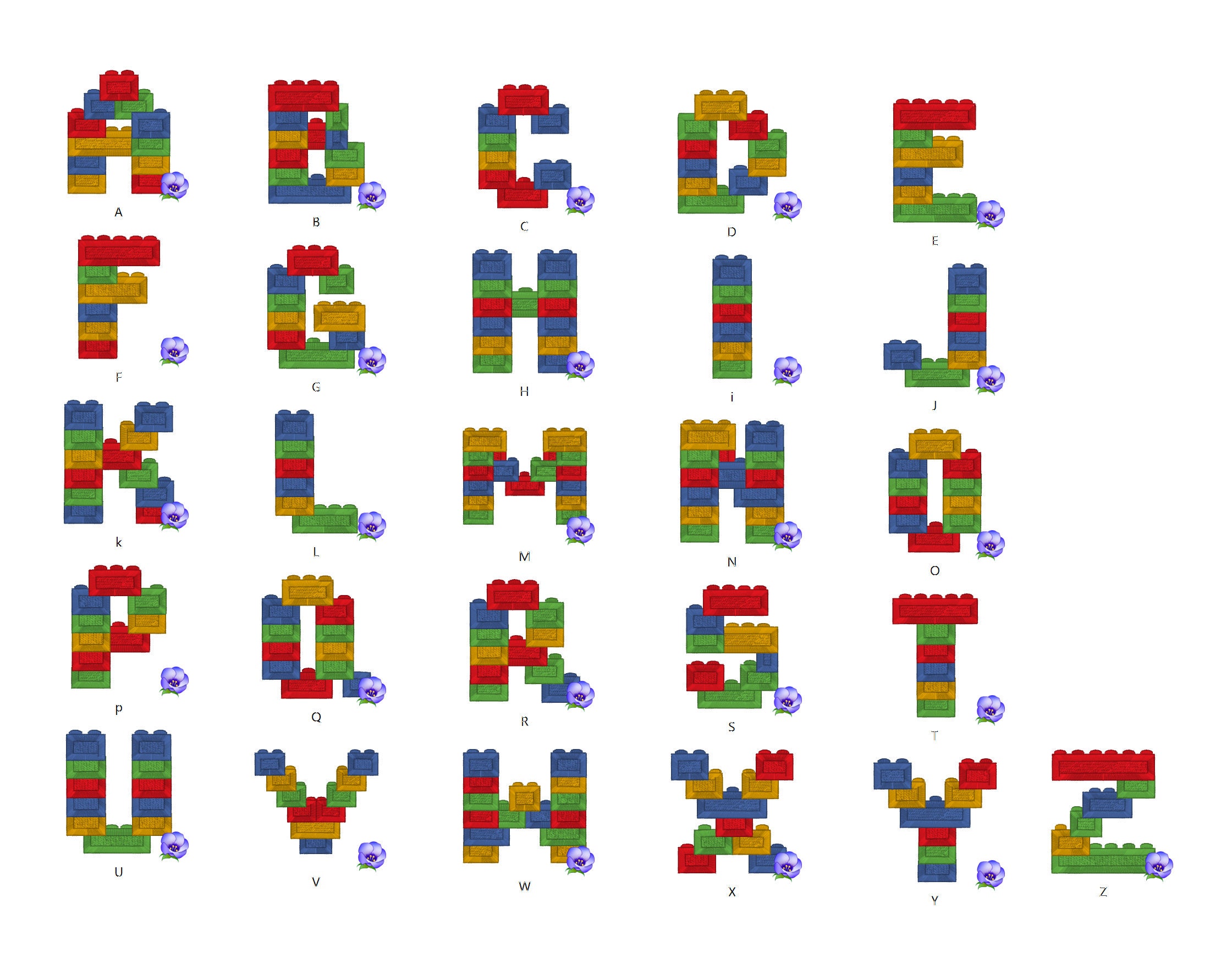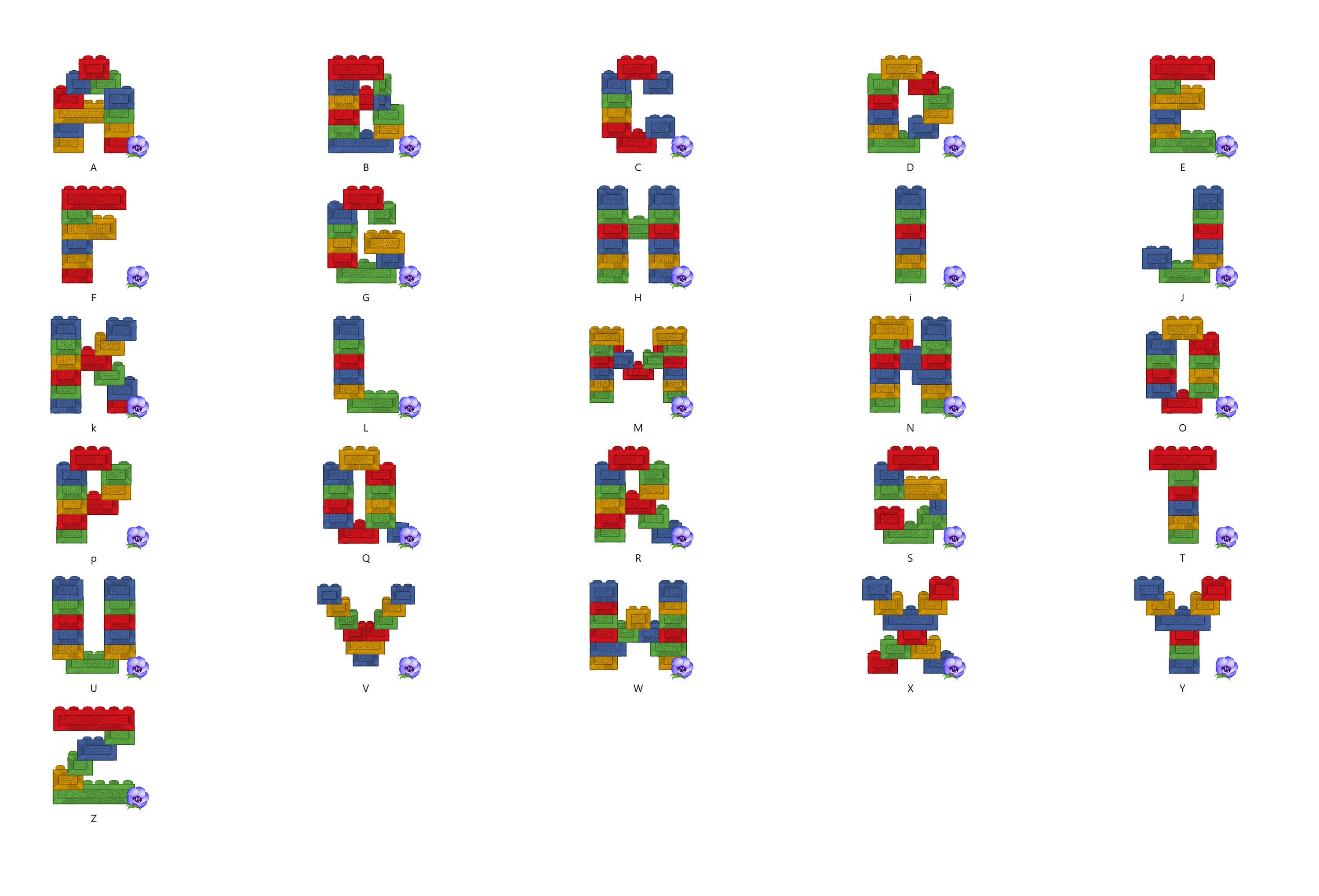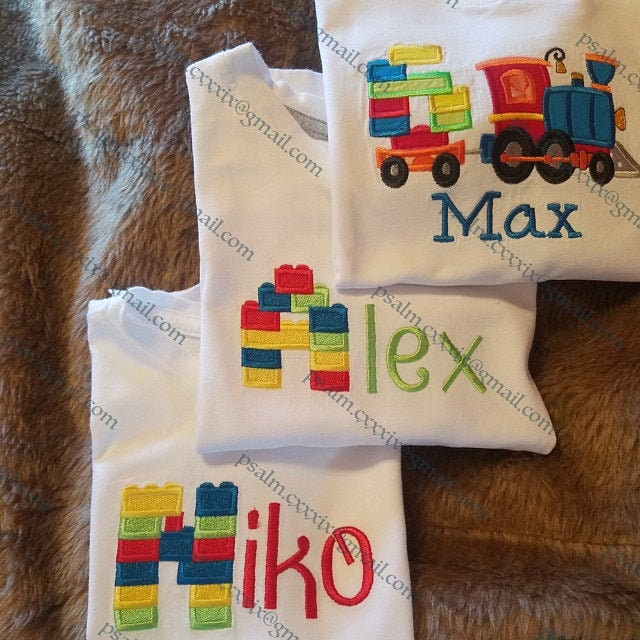
Blocks bricks, brick block Font machine embroidery designs in assorted sizes boys alphabet letters A-Z building brick block toy, BX included
Fill stitch Capital letters A-Z
2 1/2 inches
It was a cute addition to a Lego quilt.